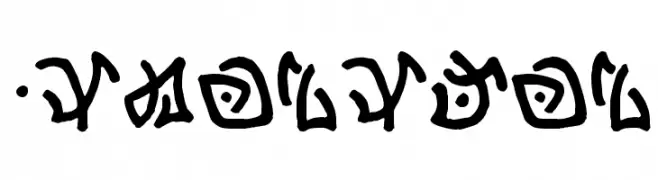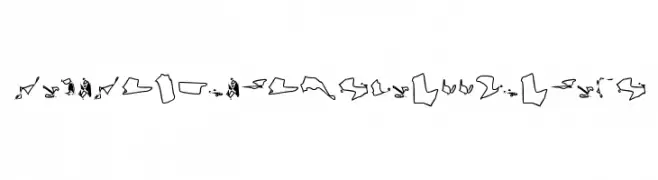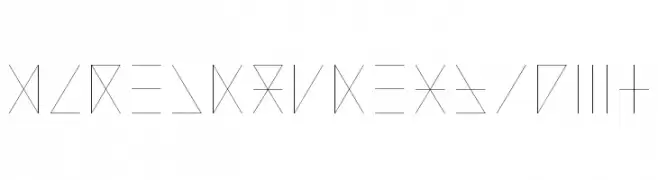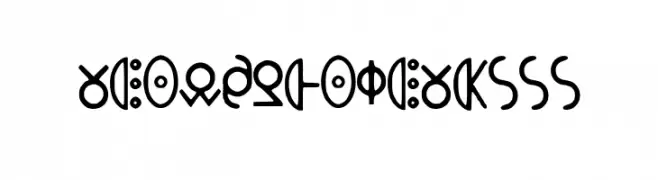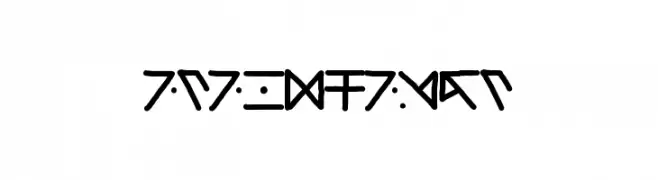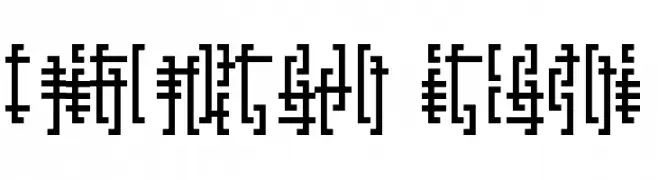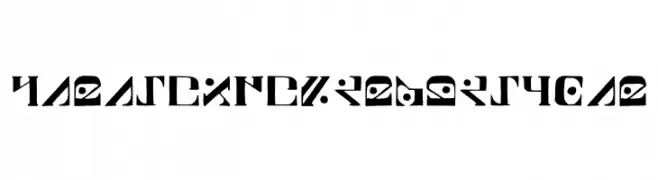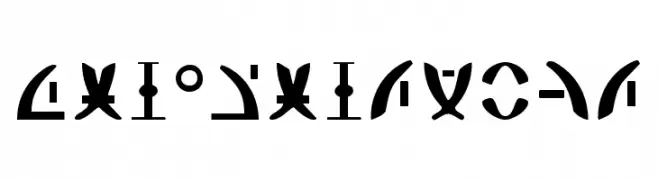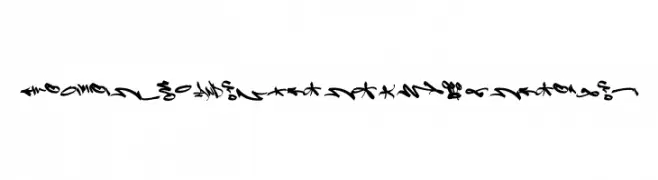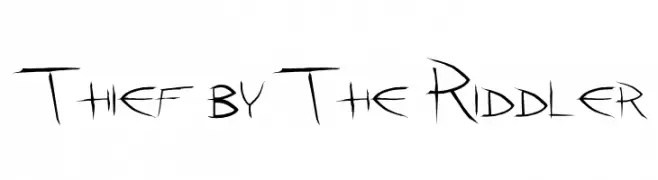
A bold, abstract font with an alien-like, hand-drawn style.
An abstract, outline font with a camouflage-like, artistic design.
A display font using QR code-inspired symbols for each character.
A symbolic, QR code-inspired set for encoding alphanumeric data.
A geometric, rune-inspired font with a minimalist and abstract style.
A futuristic, abstract font with geometric shapes and bold strokes.
A geometric and abstract font with angular, futuristic characters.
A decorative and abstract font with geometric and futuristic elements.
A bold, abstract font with geometric patterns and bracket-like enclosures.
A mystical, rune-like font with sharp, angular characters.
A decorative, abstract font with futuristic and geometric shapes.
A decorative and abstract font with geometric and futuristic elements.
Abstract, hand-drawn script with irregular, ancient-like forms.
A bold, abstract font with a futuristic and alien-like design.
A decorative Morse code-inspired font with dots and dashes.
An abstract, symbol-like font with intricate and artistic designs.
Edgy, spiky handwritten display font with a mysterious vibe.